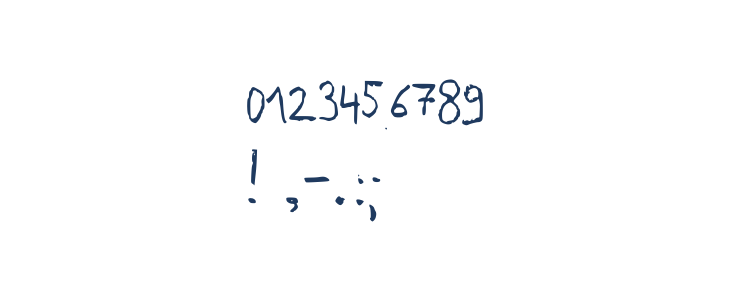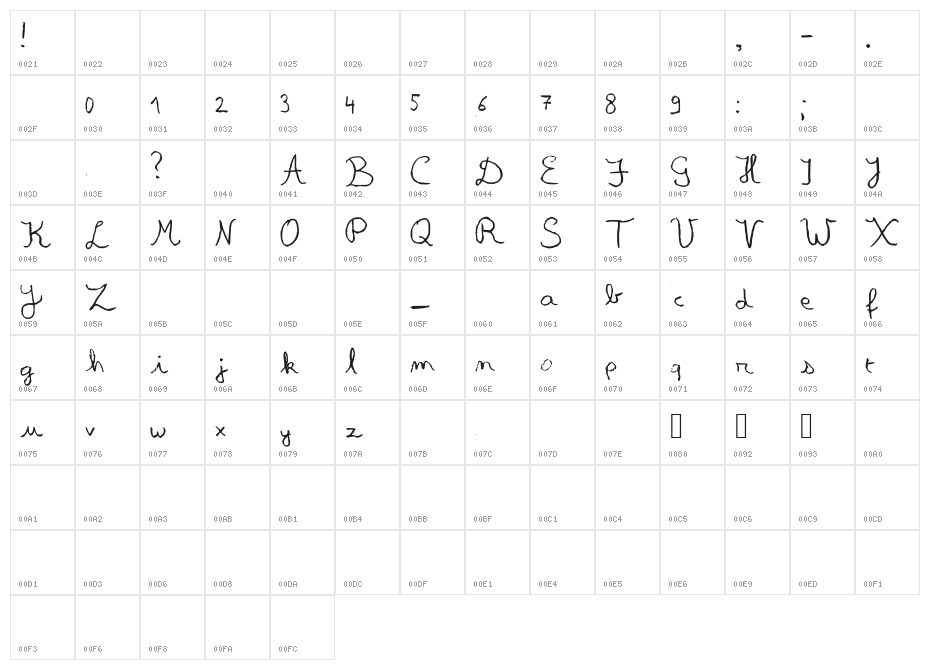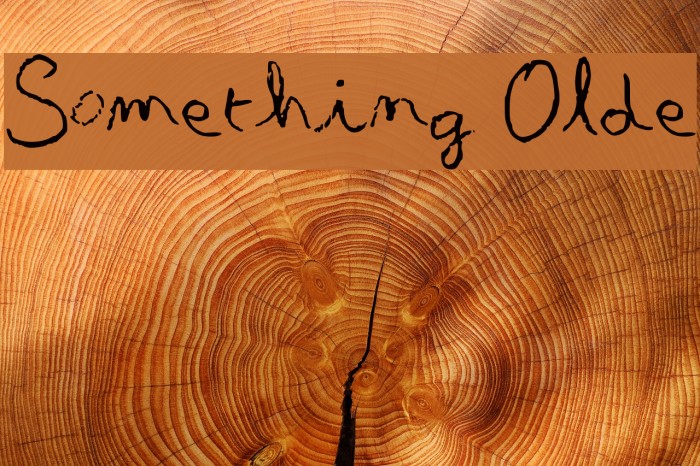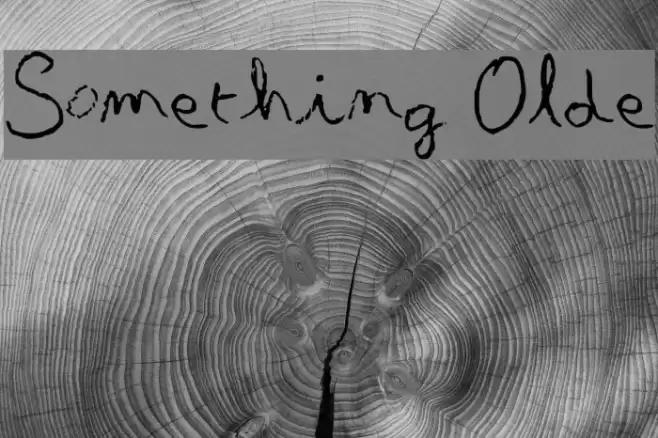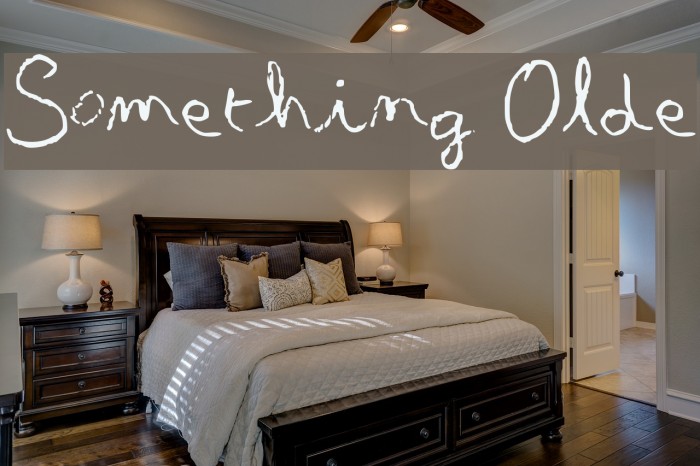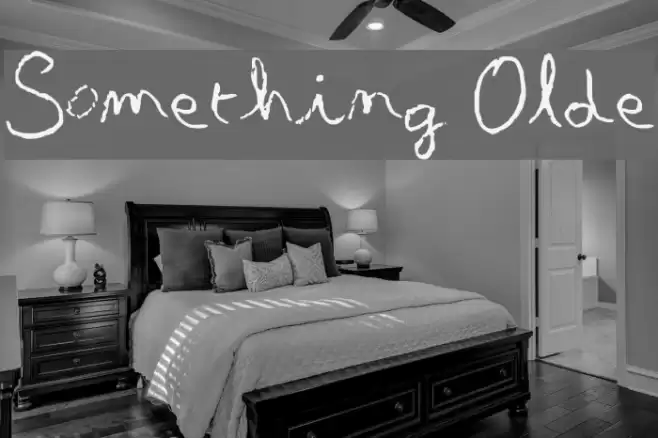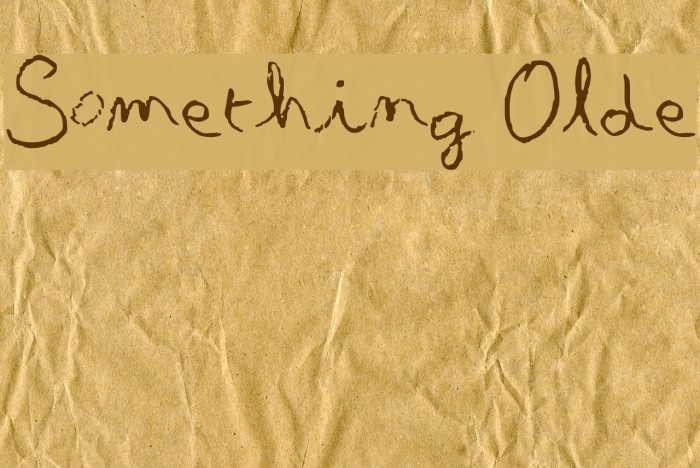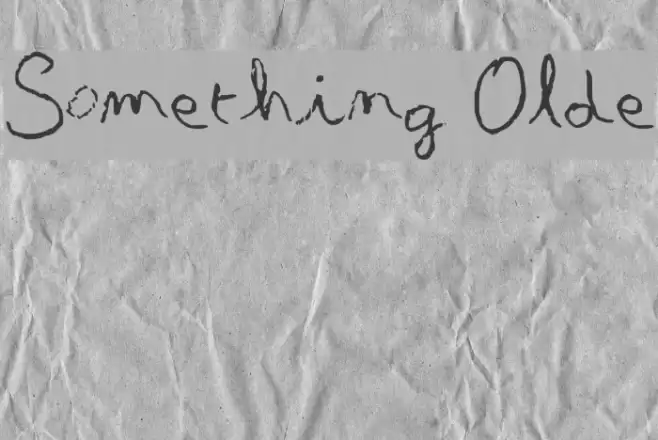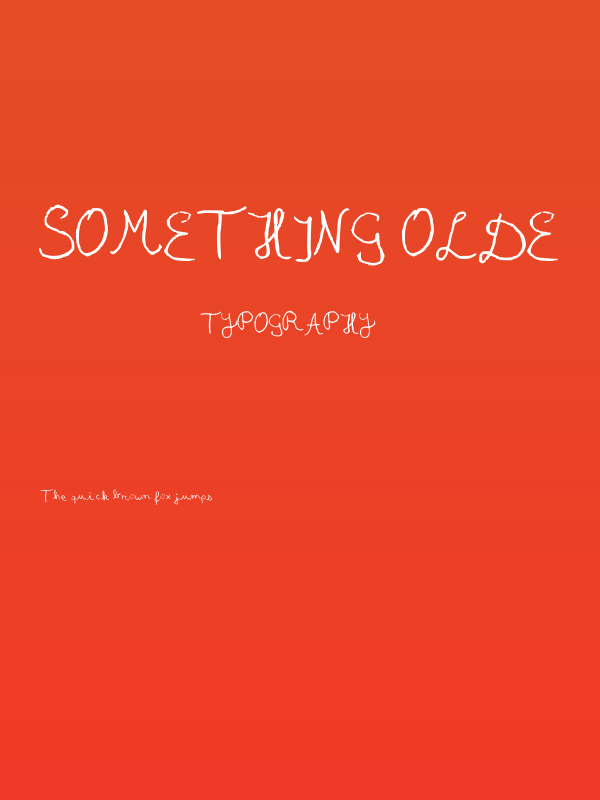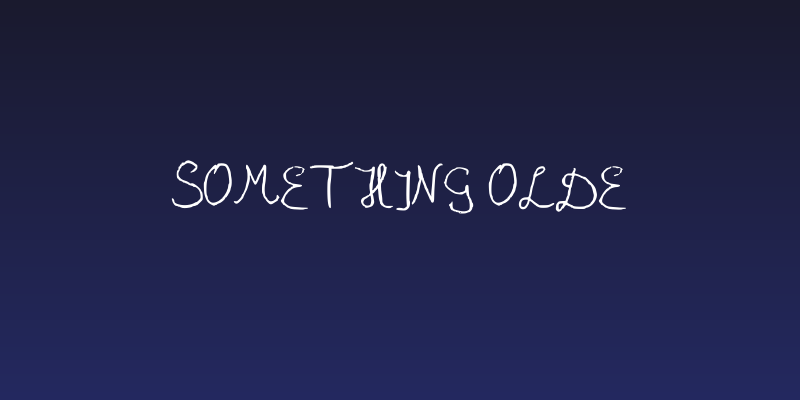
Something Olde Font
Something Olde Description
This font features a charming, handwritten style that evokes a sense of nostalgia and personal touch. The characters are fluid and slightly irregular, giving them a natural, organic feel. The uppercase letters are bold and expressive, while the lowercase letters maintain a consistent flow with subtle variations in stroke width. The numbers are clear and legible, complementing the overall aesthetic. Special characters are included, adding versatility for various uses. This font is ideal for projects that require a personal, vintage touch, such as invitations, greeting cards, or branding for artisanal products.
| Use Case | Invitations, Greeting cards, Artisanal branding |
| Proposed Projects | Ideal for invitations, greeting cards, artisanal branding, and vintage-themed designs. |